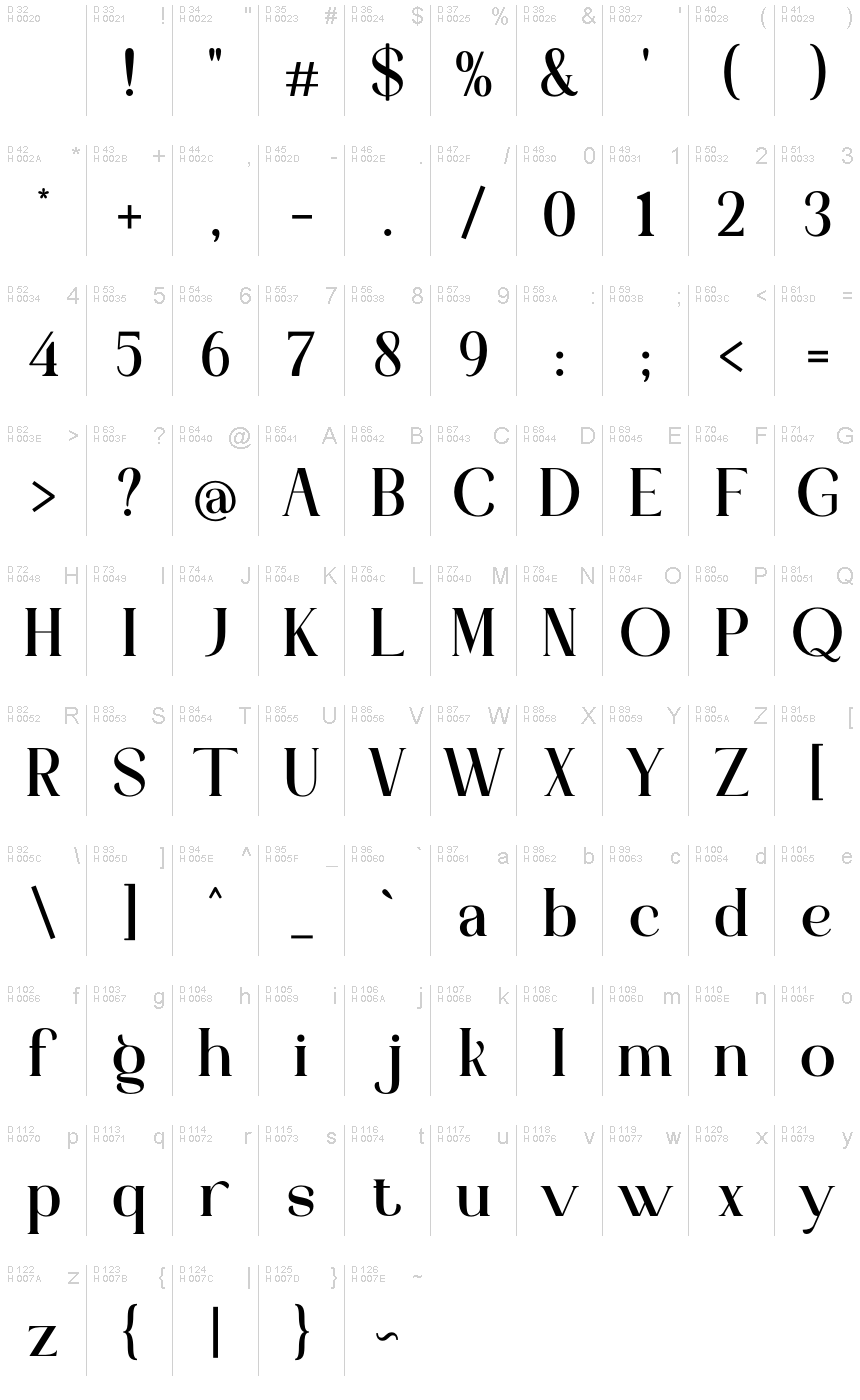
Shortly Cometrue DEMO
Shortly Cometrue, designed by Makashi, is a serif font that exudes elegance with its semi-light weight. Its fine lines and subtle curves convey a sense of sophistication and contemporary chic, making it an excellent choice for designers seeking to infuse their projects with a touch of class. The airy character of Shortly Cometrue lends itself to high readability, ideal for both print and digital media.
Artfully crafted by Makashi, the font's aesthetic appeal lies in its balance between classic serif formality and modern-day minimalism. Whether it graces the pages of a novel or the interface of an app, Shortly Cometrue promises to captivate audiences with its versatility and stylish flair. This font is not just a typeface; it's a statement piece that can elevate any creative endeavor.